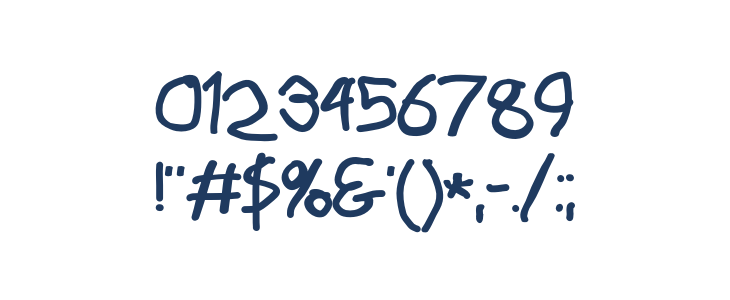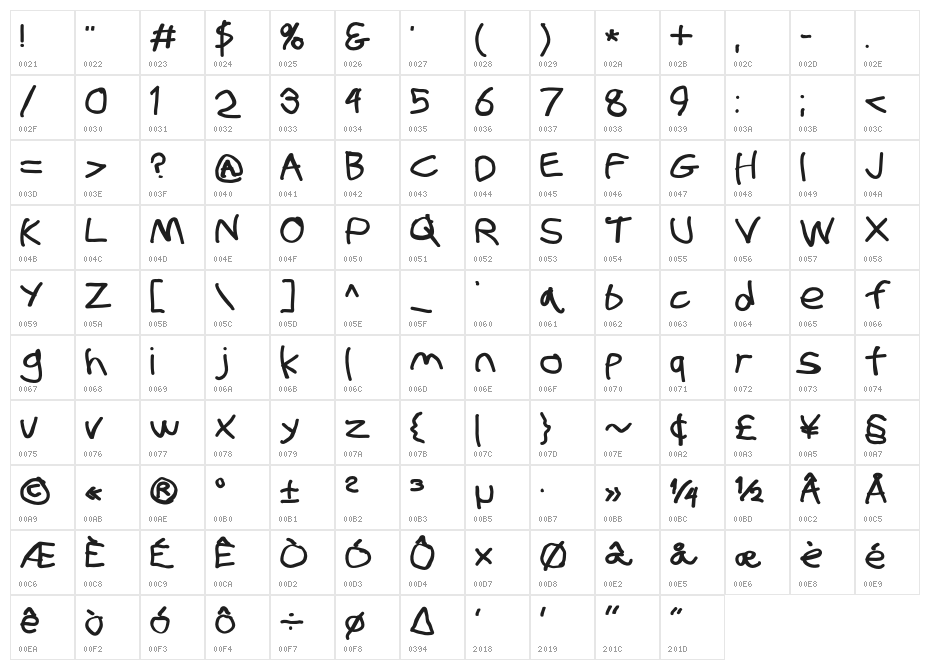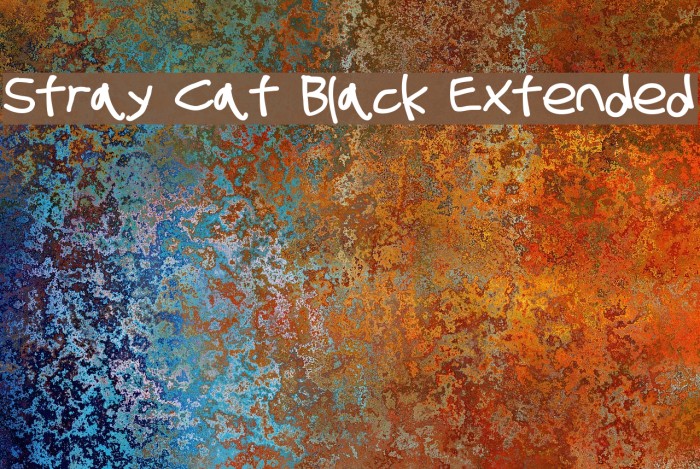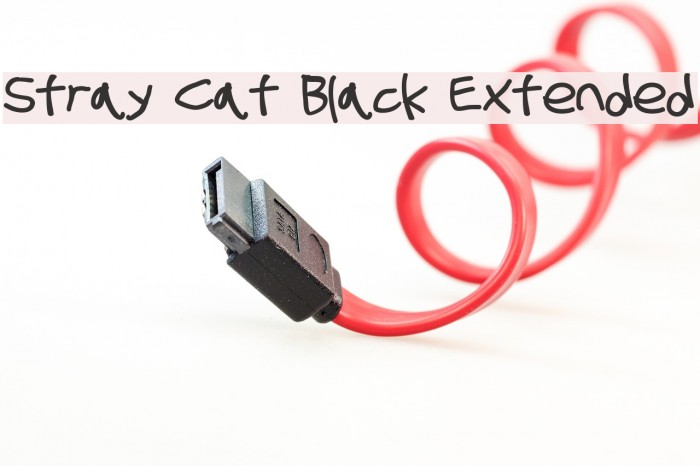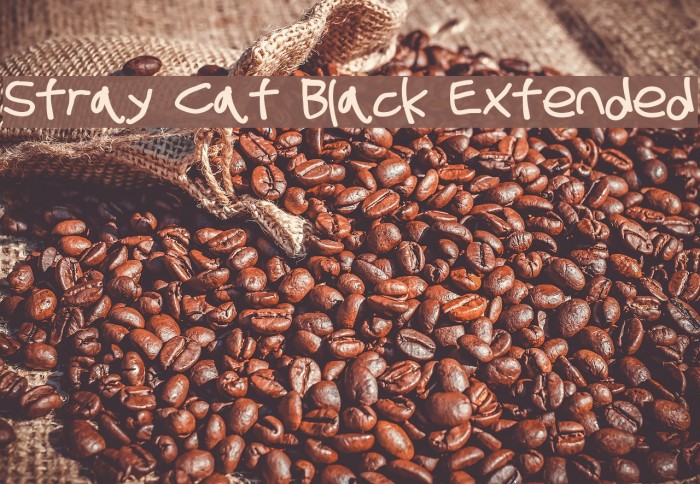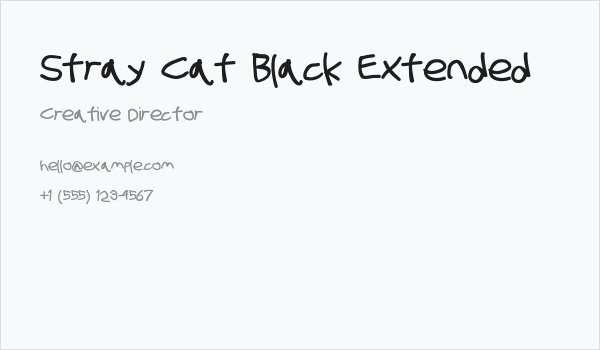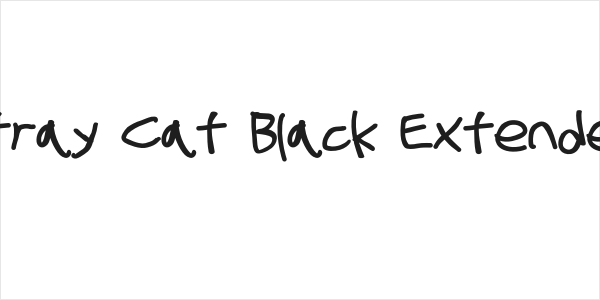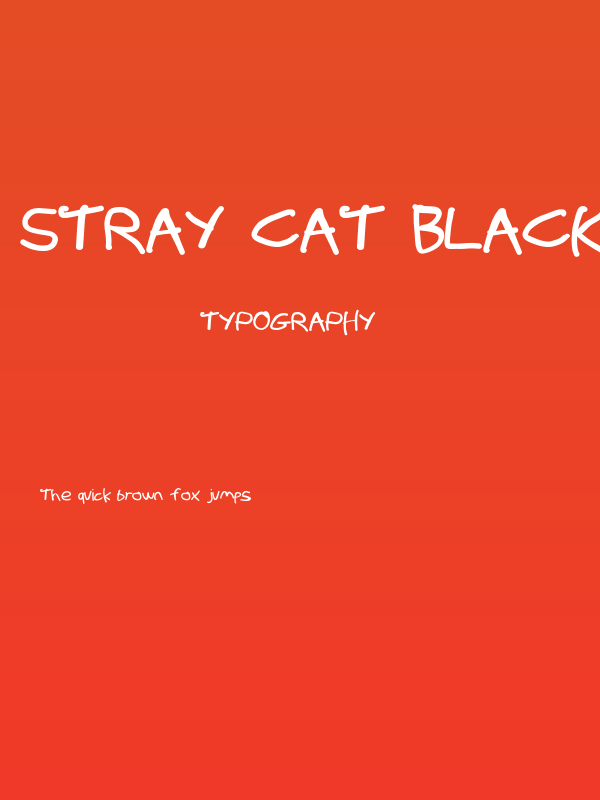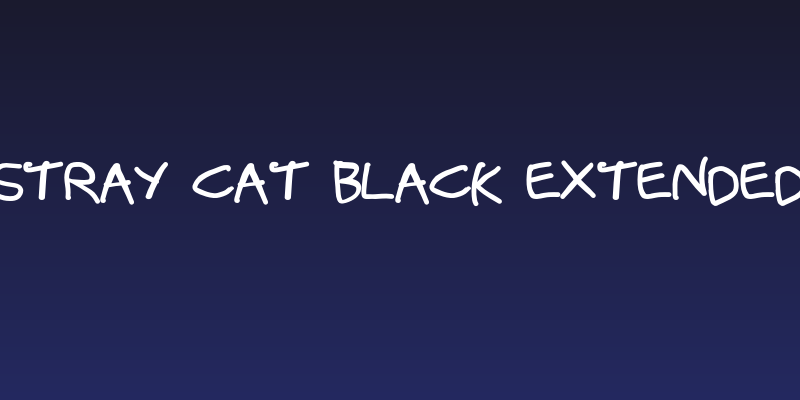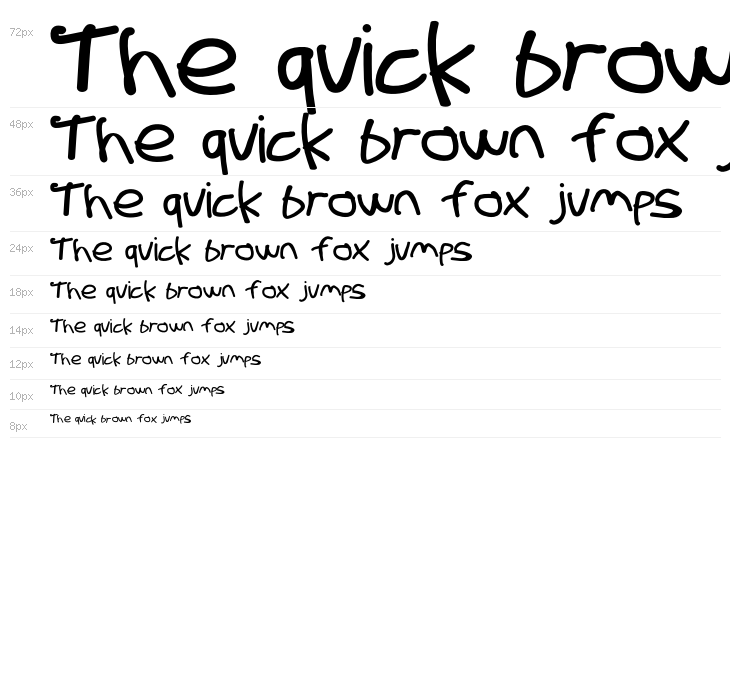
Stray Cat Black Extended Font
Stray Cat Black Extended Description
This font features a playful and casual handwritten style, characterized by its bold and slightly uneven strokes. The letters have a natural, organic flow, giving it a lively and informal appearance. The uppercase and lowercase letters maintain a consistent style, with rounded edges and a slight slant that adds to its dynamic feel. The numbers and special characters are equally expressive, matching the overall aesthetic of the alphabet. This font's unique charm makes it suitable for projects that require a personal touch or a fun, approachable vibe.
| Use Case | Logos, Headlines, Informal Text |
| Proposed Projects | Ideal for greeting cards, children's books, playful branding, and social media graphics. |